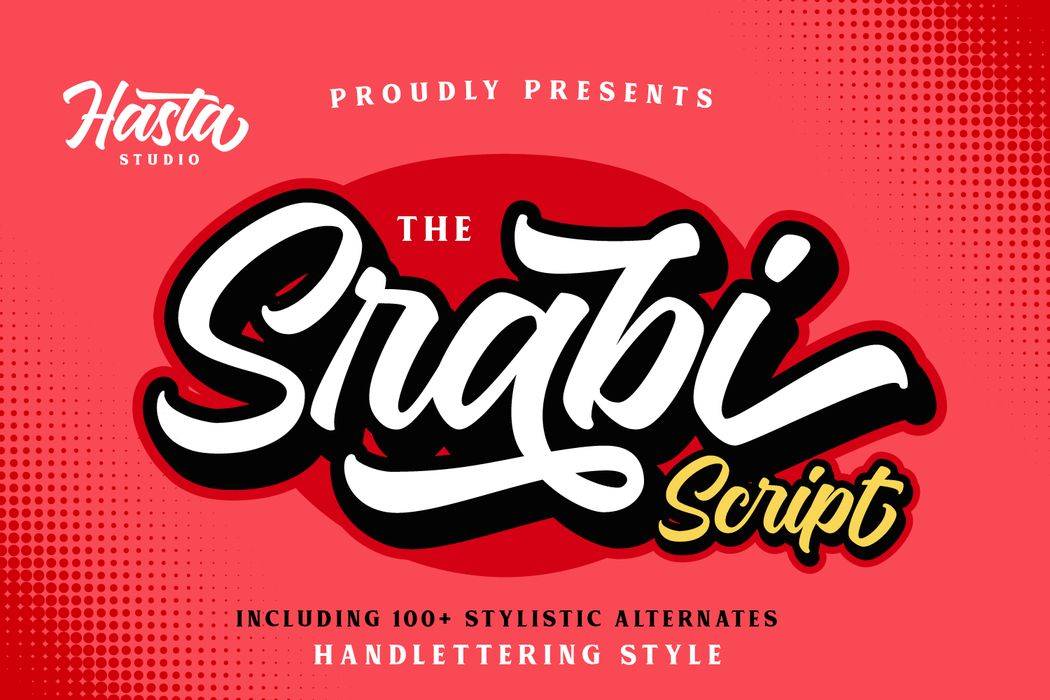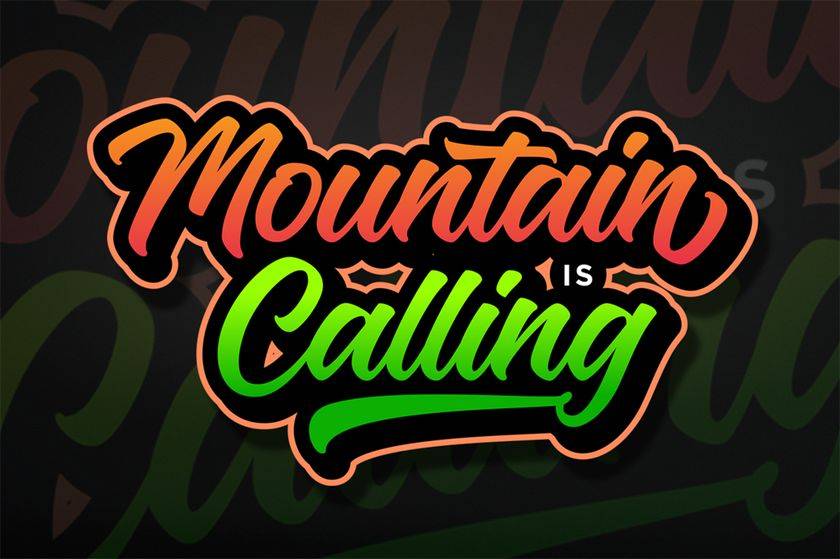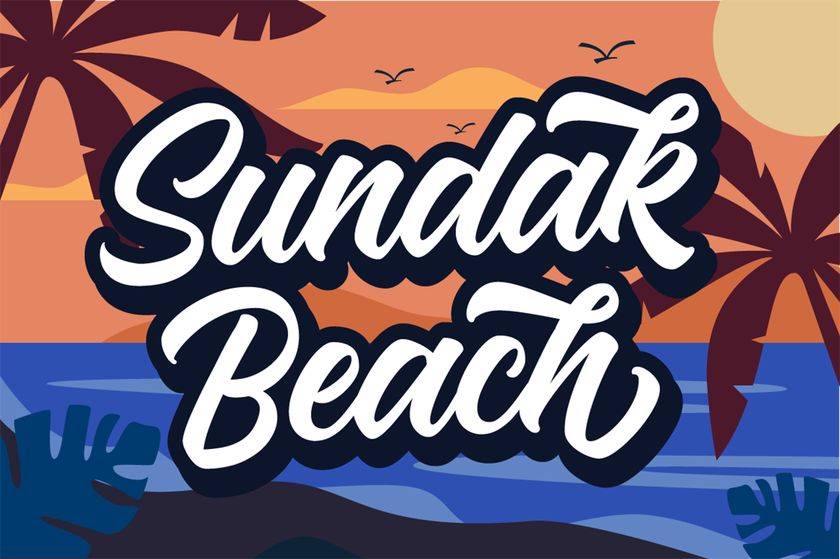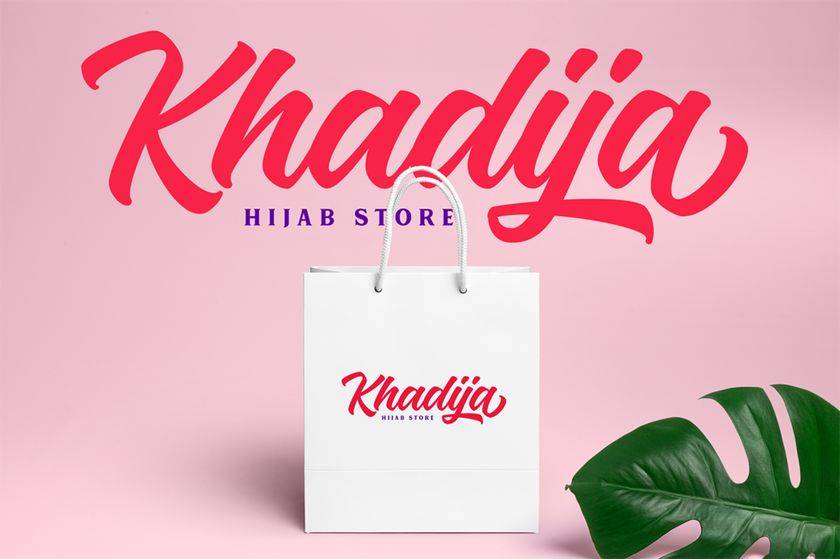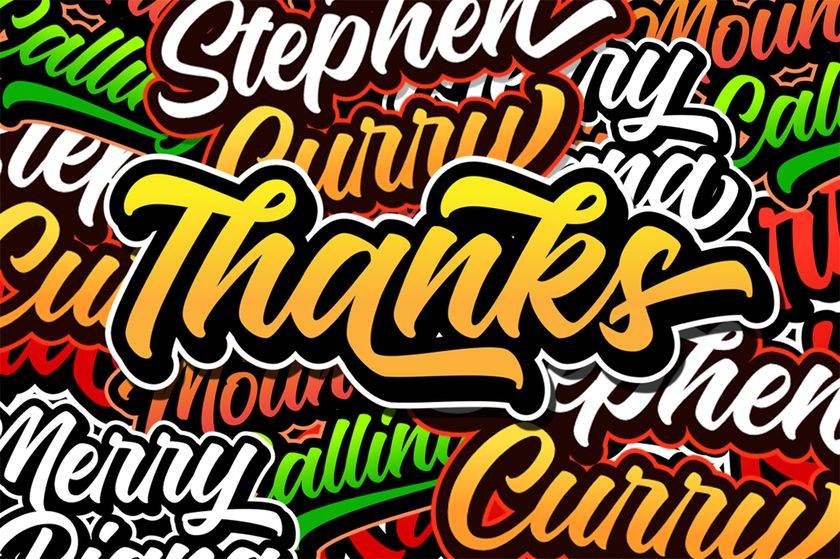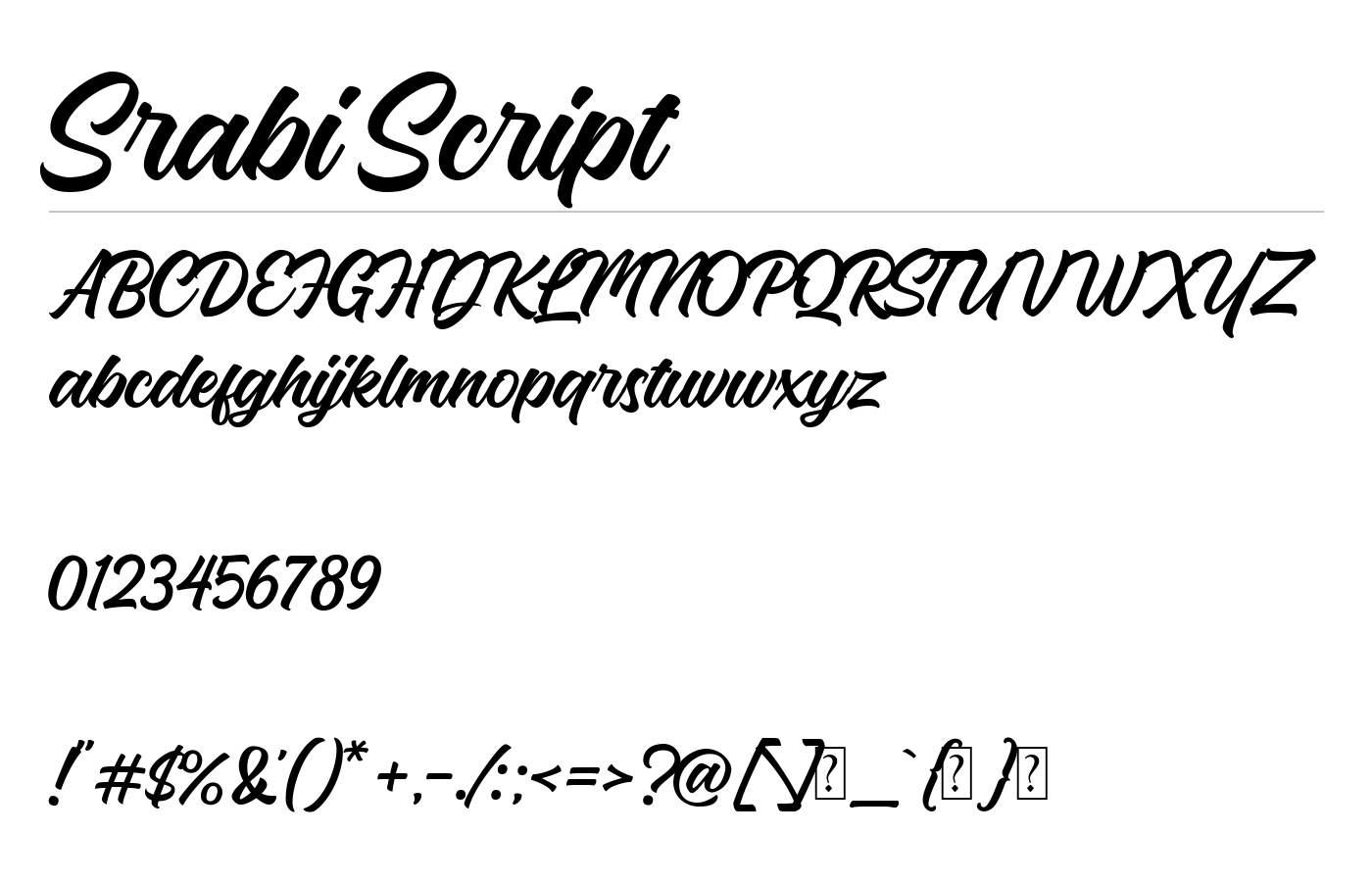
Srabi Script is a lively and elegant script font featuring smooth, flowing strokes with a moderate contrast that gives it a polished yet approachable look. Its connected letterforms and stylish curves make it perfect for creative branding, invitations, and headlines that need a personal and refined touch. This font works well where a friendly, handwritten feel combined with sophistication is desired.
Srabi Script Font
About Srabi Script Font
| Font family | Srabi Script Font |
| Designer | Hasta Studio - Salman Mashudi |